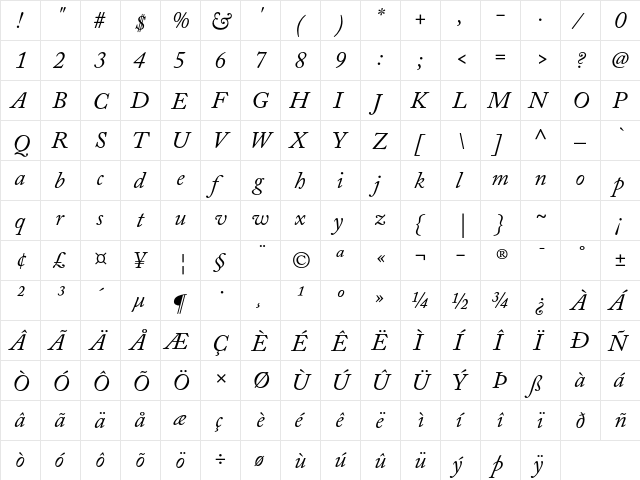
Adobe Caslon Pro Italic
| Designer | Carol Twombly |
Design Context for Adobe Caslon Pro Typeface
Adobe Caslon Pro takes a measured approach to typography — its balanced proportions and neutral character make it a reliable workhorse for both digital and print work. The dynamic lean of this cut emphasises speed and emphasis in any layout.
Pro Tip: Use Adobe Caslon Pro for emphasis, pull quotes, and subheadings where its slanted energy can add rhythm to the layout.